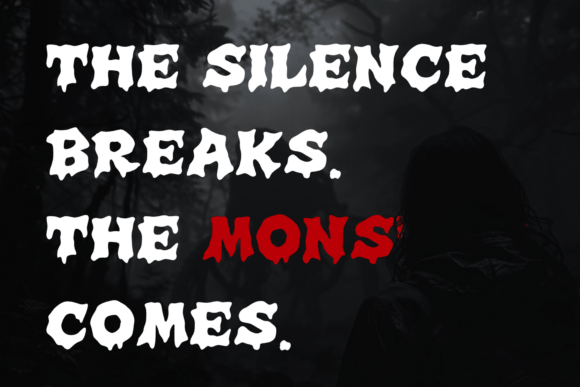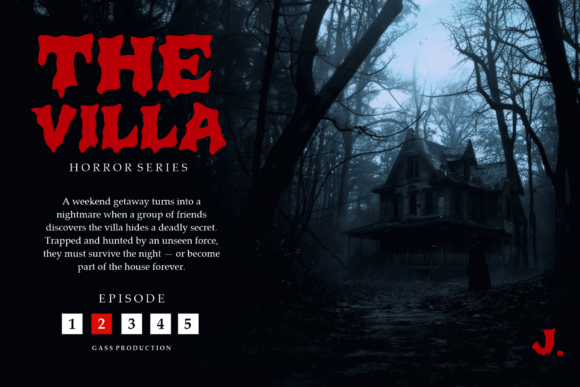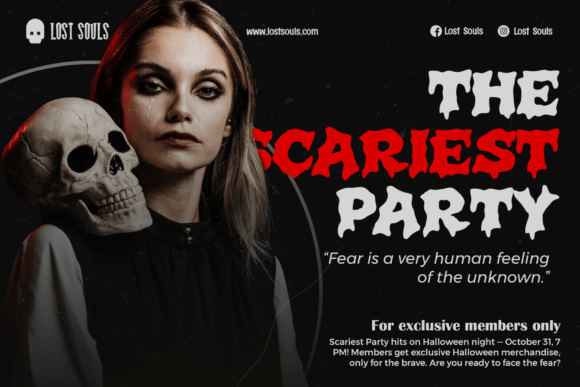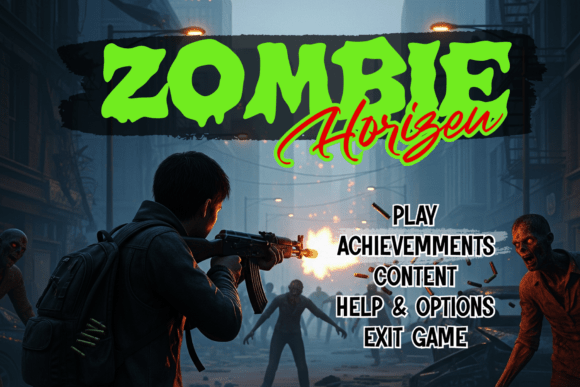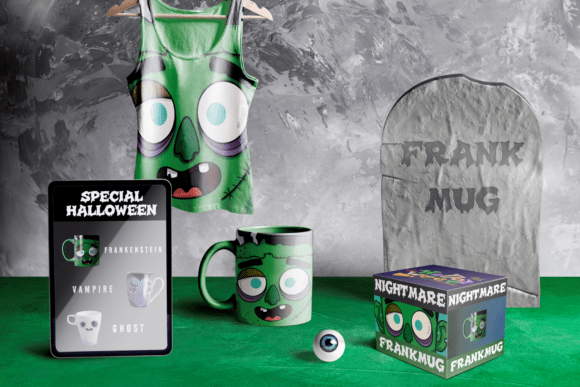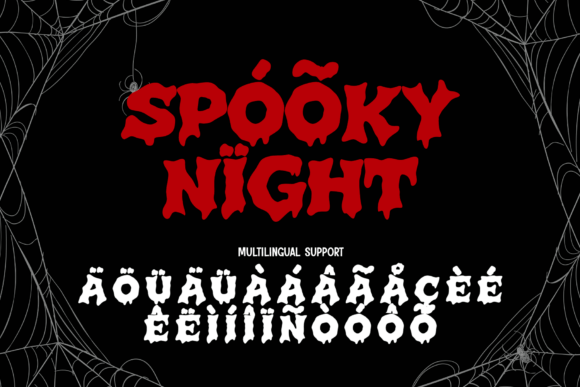
Unleash the Horror: Discover the DRAVN Font
I’ll never forget the time I was working on a Halloween-themed project for a client, and I just couldn’t find the right font to capture the spooky vibe. The client wanted something that would send shivers down the spine, but everything I tried seemed too tame, too boring, or just plain cheesy. That’s when I stumbled upon the DRAVN font, and let me tell you, it was love at first sight! 💀
This menacingly bold horror-dedicated typeface embodies darkness, making it an excellent choice for Halloween graphics, spook-tinged invitations, horror cinema artwork, spectral brand imagery, or blood-chilling game headings. In this article, we’ll dive into the world of DRAVN, exploring its features, and how to make the most of it in your design projects.
- 💥 DRAVN’s jagged, distorted letterforms emanate a sense of trepidation and mystery, injecting an element of thrill and suspense into every written phrase.
- 📚 The font comprises uppercase and lowercase letters, numerals, and punctuation, making it versatile for a wide range of design needs.
- 🌎 DRAVN supports a host of languages, casting its spell of fear and intrigue worldwide.
- 👍 The font packs a punch of high-impact terror while giving your designs an authentic, handcrafted feel of uncanny dread.
While DRAVN is an amazing font, there are a few things to keep in mind:
- 🤔 The font’s distressed look might not be suitable for very small font sizes or body text, as it can be overwhelming.
- ⚠️ Some of the glyphs and special characters might require a bit of experimentation to get just right.
According to the designers, DRAVN was inspired by the darker corners of horror movies, haunted houses, and creepy abandoned places. The goal was to create a font that would evoke a sense of fear and unease, while still being legible and usable. The result is a font that’s both terrifying and mesmerizing.
| Font Name | Dravn Font |
| Author | sipanji figuree |
Q: Is DRAVN suitable for body text?
A: While DRAVN is an amazing font, it’s best suited for headlines, titles, and short phrases. Its distressed look might be overwhelming for long blocks of text.